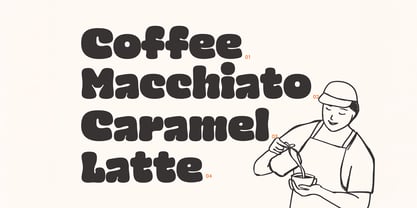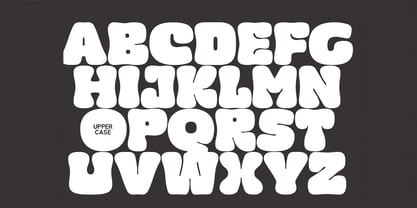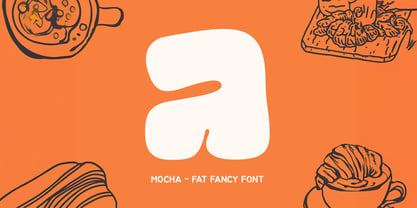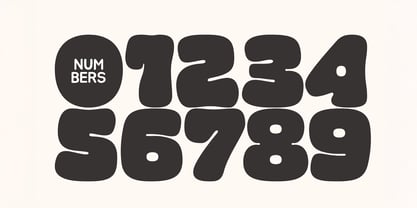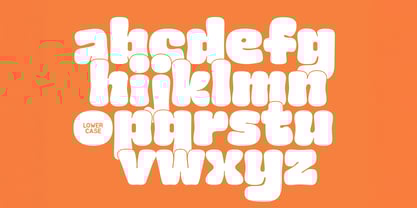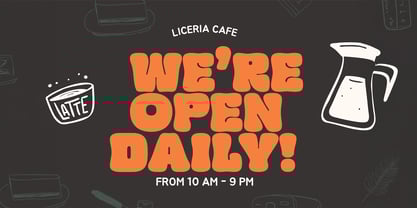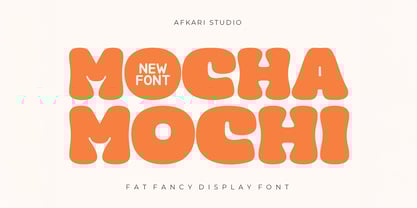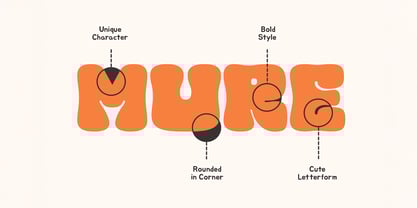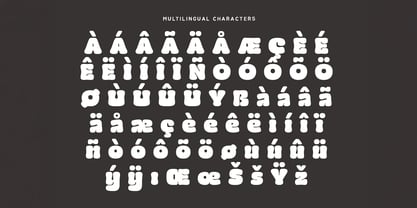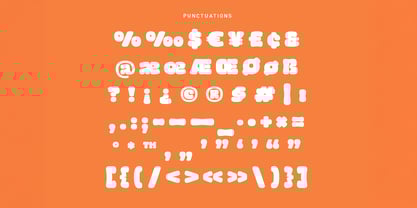
Mocha Mochi
by Afkari Studio
The Mocha Mochi Font Family was designed by Musthafa Kamal Emje and published by Afkari Studio. Mocha Mochi contains 1 styles. More about this family
Mocha Mochi is a fat fancy display font with bold, rounded, and playful letterforms—perfect for designers who want to add a sweet and eye-catching touch to their projects. Inspired by the softness of mochi and the cozy feel of mocha, this font delivers a fun, friendly, and modern aesthetic ideal for both digital and print designs. Mocha Mochi stands out with its unique fat rounded look, making it a great choice for designers who need a font that captures attention instantly. Its charming personality makes it perfect for brands that want to appear youthful, cheerful, and memorable. What’s Included; - Uppercase, Lowercase, Number, and Punctuation - Special Alternates and ligatures - Works on PC & Mac, Simple installations - PUA Encoded Characters – Fully accessible without additional design software. - Mültîlíñgúãl Sùppört for; ä ö ü Ä Ö Ü ß ¿ ¡ Mocha Mochi offers a distinctive voice—playful yet confident—making it an excellent font for brands and creators who want to stand out with a bold yet friendly typeface.
Designers: Musthafa Kamal Emje
Foundry: Afkari Studio
Mocha Mochi